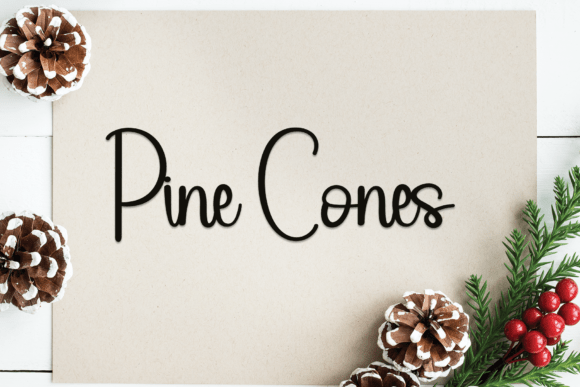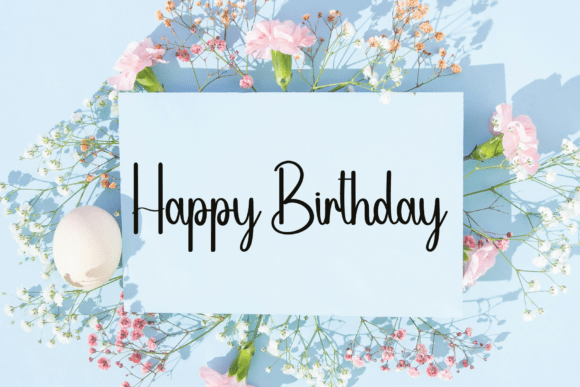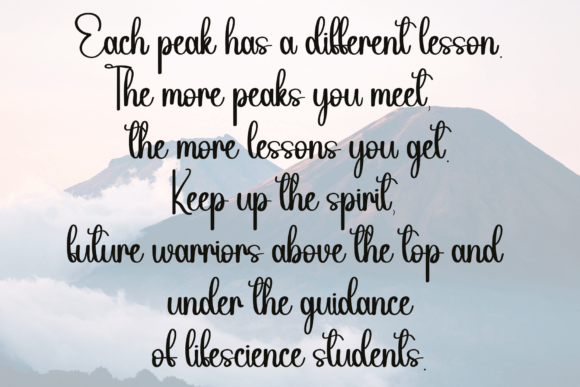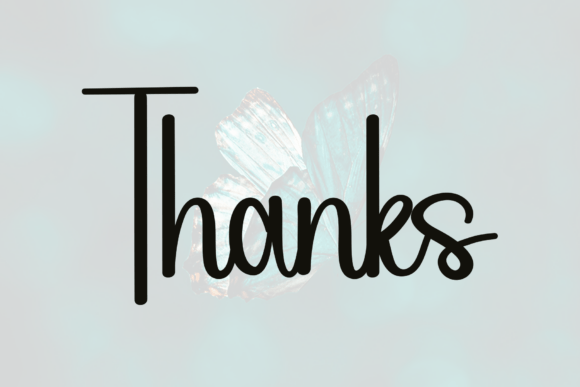
Introducing Butterfly Font: Elevate Your Designs with Elegance and Sophistication
In the world of typography, a well-crafted font can make all the difference in transforming a design from ordinary to extraordinary. For designers and crafters seeking to infuse their projects with a touch of elegance and modern charm, the Butterfly Font is an exceptional choice. This stylish script font is meticulously designed to bring a sense of refinement and sophistication to a wide range of applications, from logos and invitations to packaging and social media graphics.
The Essence of Butterfly Font
Butterfly Font is a beautiful representation of contemporary script typography, blending the organic feel of hand-drawn calligraphy with the precision of modern design. Its gracefully flowing strokes and fluid curves give it a dynamic and lively appearance, while its carefully crafted letterforms ensure a high level of readability and versatility. This font is not just a tool for writing; it’s an element of design that can stand alone or complement other visual elements to create a stunning aesthetic.
Key Features of Butterfly Font
- Elegant and Modern Design: The font boasts a sleek and sophisticated look, making it perfect for projects that demand a contemporary edge.
- Hand-Drawn Calligraphy Feel: Despite its digital nature, Butterfly Font captures the warmth and uniqueness of hand-drawn calligraphy, adding a personal touch to any design.
- Versatility: Its clear and readable letterforms make it suitable for a variety of applications, from large headlines to smaller body text.
- Polished Details: Every aspect of the font, from the swashes to the serifs, is meticulously designed to contribute to its overall elegance and visual appeal.
Applications of Butterfly Font
The versatility of Butterfly Font makes it an invaluable asset for designers across various industries. Here are some of the key areas where this font truly shines:
- Logo Design: Create memorable and impactful logos that stand out with the unique elegance of Butterfly Font.
- Invitations and Stationery: Add a touch of luxury and sophistication to wedding invitations, business cards, and other stationery.
- Packaging: Elevate product packaging with a refined aesthetic that captures the essence of the brand.
- Social Media Graphics: Make social media posts, stories, and banners more engaging and visually appealing with this stylish font.
Why Choose Butterfly Font?
In a sea of fonts, Butterfly Font stands out for its unique blend of elegance, modernity, and versatility. Here are a few reasons why designers and crafters should consider adding it to their toolkit:
- Unique Aesthetic: It offers a distinctive look that can help designs stand out in a crowded marketplace.
- Time-Saving: With its comprehensive set of characters and swashes, Butterfly Font can significantly streamline the design process.
Butterfly Font is more than just a typeface; it’s a design element that can transform and elevate any project. Its elegant strokes, fluid curves, and modern charm make it an ideal choice for designers and crafters aiming to infuse their work with sophistication and style. Whether you’re creating a brand identity, designing an invitation, or crafting engaging social media content, Butterfly Font offers the versatility and visual appeal needed to make your designs shine. Embrace the beauty and elegance of Butterfly Font in your next project and experience the difference it can make.